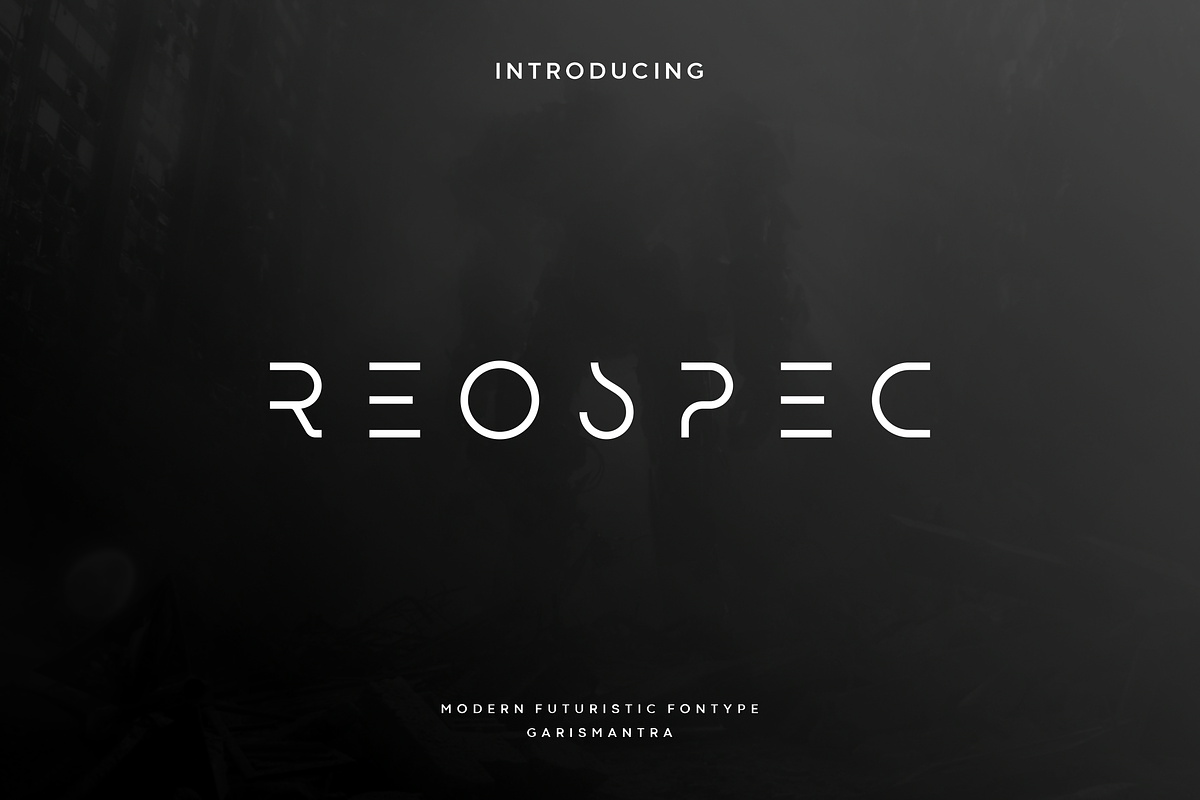
Reospec Font Free Download is a modern and sleek sans-serif typeface designed for bold and professional use. With its clean lines, geometric shapes, and balanced proportions, Reospec is perfect for branding, logos, web design, editorial layouts, and marketing materials that need a contemporary touch.
This font combines a minimalist aesthetic with high readability, making it ideal for both headlines and body text. Whether you’re working on a corporate identity, a tech product, or a stylish magazine layout, Reospec enhances your typography with a modern, fresh feel.